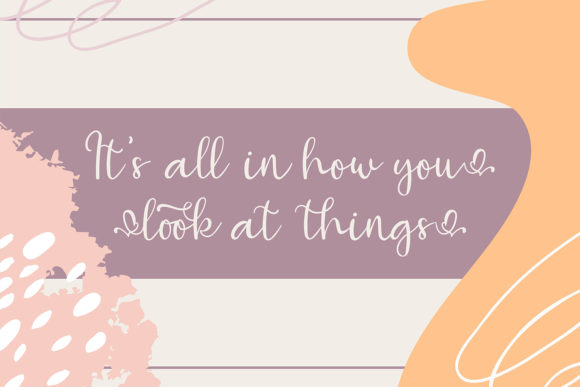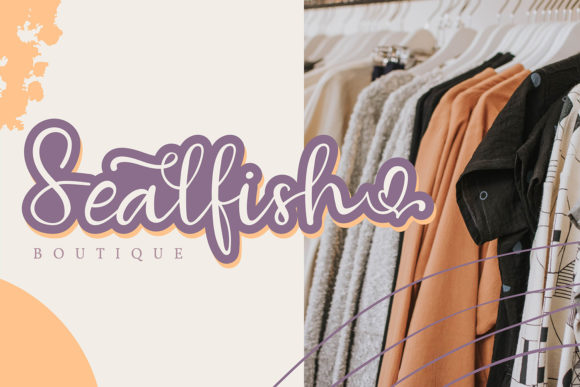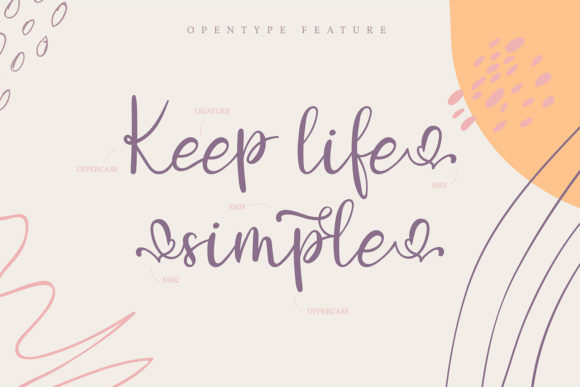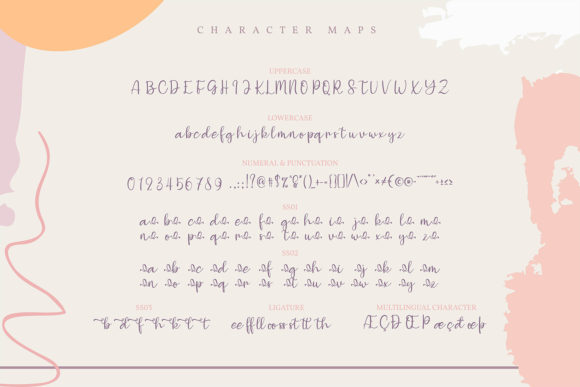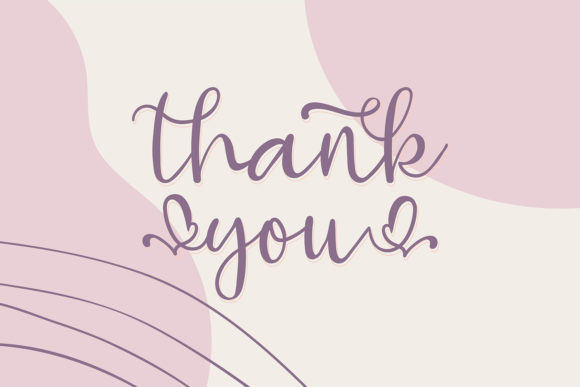
Introduction to Greafield Font
Greafield is a romantic and sweet handwritten font.
It maintains its classy calligraphic influences while feeling contemporary and fresh This font is PUA encoded which means you can access all of the glyphs and swashes with ease.
Key Features of Greafield Font